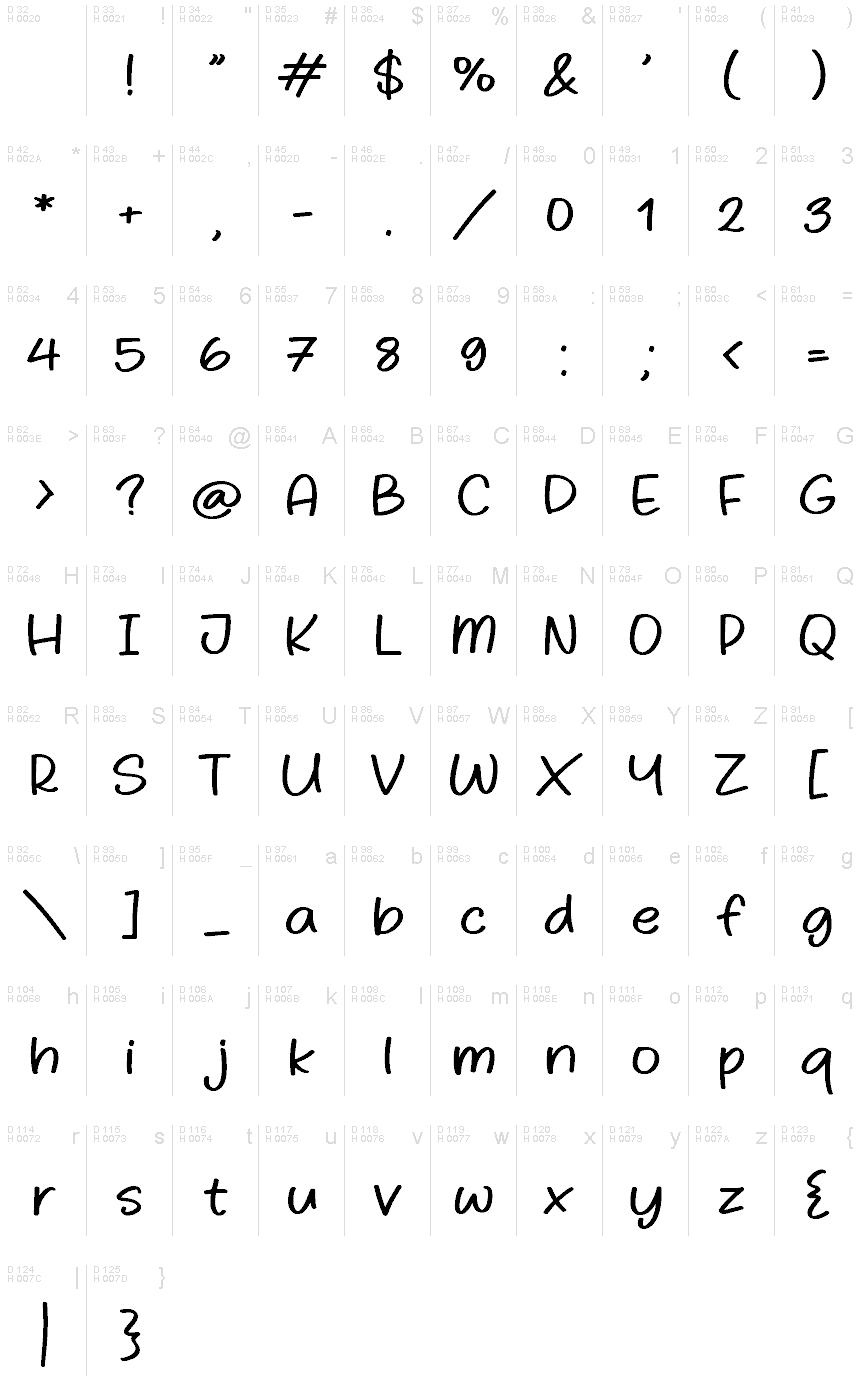
Pinksoda
Pinksoda font by Balpirick Studio is a casual and modern handwritten font with a youthful appeal. The letters are approachable and friendly, featuring smooth transitions that create aesthetic visual harmony making this a memorable typeface. It can combine style with readability equally, thus promising the perfect solution for a wide range of creative projects.